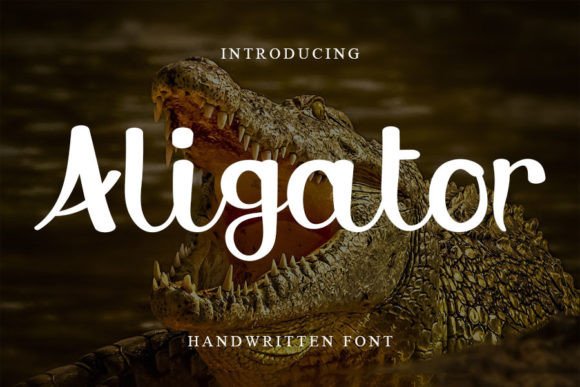
The Allure of Aligator Font: A Designer’s New Best Friend
I’ll never forget the time I was working on a branding project for a trendy craft brewery, and I just couldn’t find the right font to capture their playful yet sophisticated vibe. The client wanted something that would stand out on social media, merchandise, and even beer labels. That’s when I stumbled upon Aligator Font, and let me tell you, it was love at first sight! 💕
Aligator is a colorful handwritten font that’s carefully crafted with a touch of elegance. It’s clean, a little quirky, and perfect for designers, crafters, and creative hobbyists looking to add some personality to their projects. In this article, I’ll share my honest review of Aligator Font, a practical guide on how to use it, and some helpful tips and tricks.
• ✅ Unique and eye-catching design that’s perfect for logos, branding, and social media posts
• ✅ Colorful and playful, yet elegant and sophisticated
• ✅ Highly versatile and adaptable to various design projects
• ✅ Easy to read and understand, even in smaller font sizes
• ⚠️ Some characters may not work well in very small font sizes or when used in all caps
The Story Behind Aligator Font
Aligator Font was designed by a team of creatives who wanted to create a unique and versatile font that would inspire designers and hobbyists alike. The font’s playful and elegant design is inspired by the beauty of nature and the world around us.
Font Name Aligator Font
Author ONE DESIGN
Q: What makes Aligator Font so special?
A: Aligator Font is special because of its unique and eye-catching design, which combines elegance and playfulness.
Q: Can I use Aligator Font on my social media posts?
A: Absolutely! Aligator Font is perfect for social media posts, and its colorful design is sure to grab attention.
Q: Is Aligator Font easy to read?
A: Yes, Aligator Font is designed to be easy to read and understand, even in smaller font sizes.